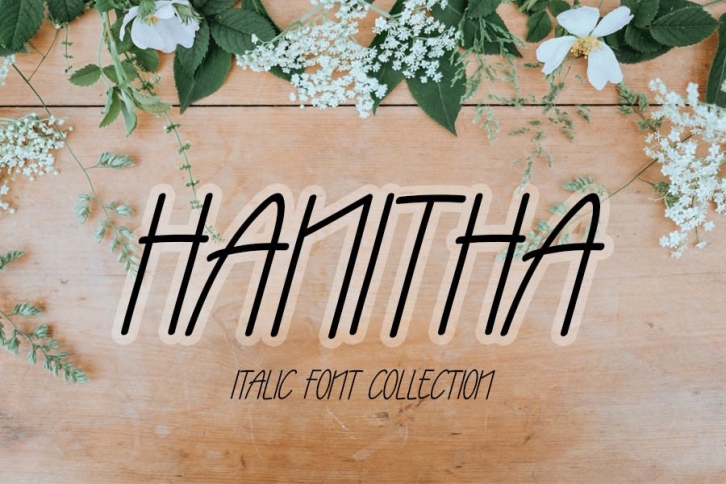
Hanitha is a thin and simple lettered handwritten font that can be used for all chalkboard quotes or teaching material! Its authentic look will add a personal and realistic feel to your designs.